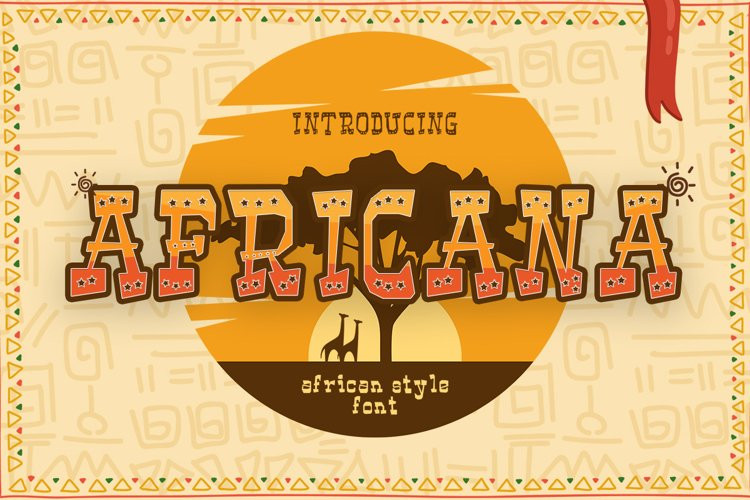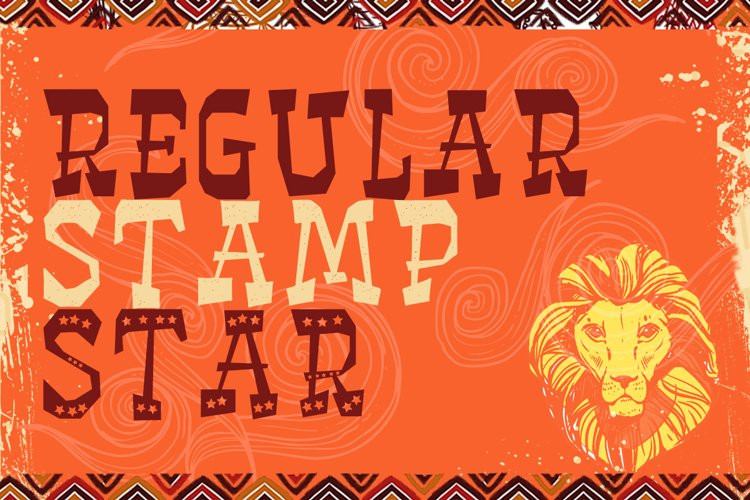
Africana Font
Africana FontPack up your bags and let’s travel to somewhere far away. Dive deep into the ethnical visual vibes together with AFRICANA.
Inspired by the traditional tribal and visual ethnic vibes. Perfectly fit for your fun and casual thematic visuals, logo, branding, products, campaigns, events, seasonal promotions, traditional concept, explore the different side of your brand using AFRICANA fonts.
Came up with 3 different styles, Regular, Stamp, and Star. And also packed up with Stylistic Alternates and Ligatures to explore the deeper vibes of ethnic and tribal visuals.